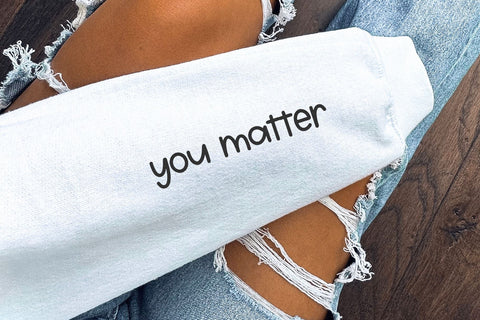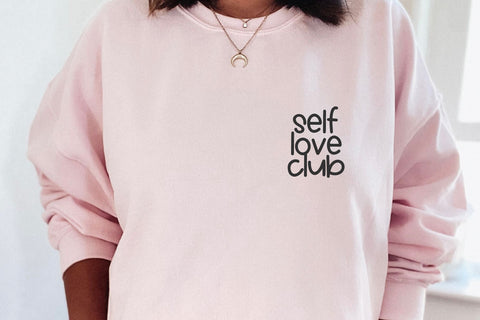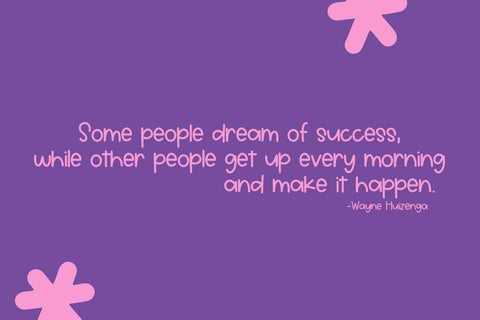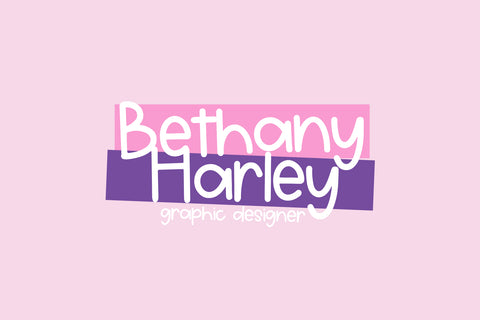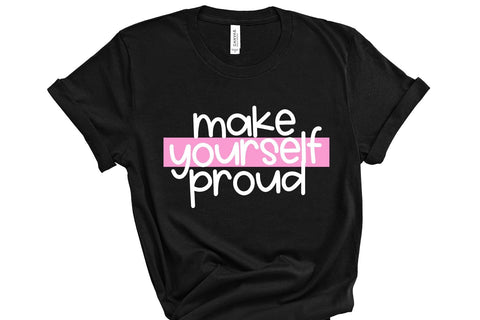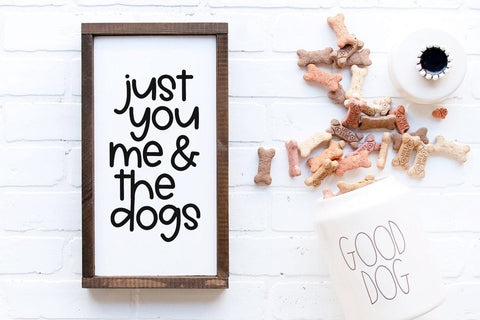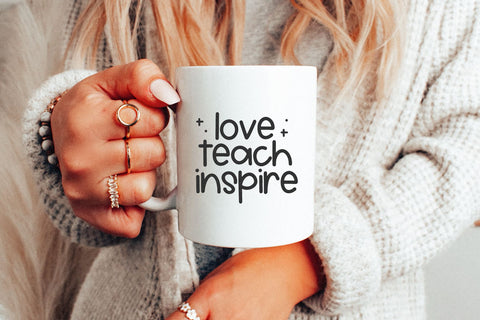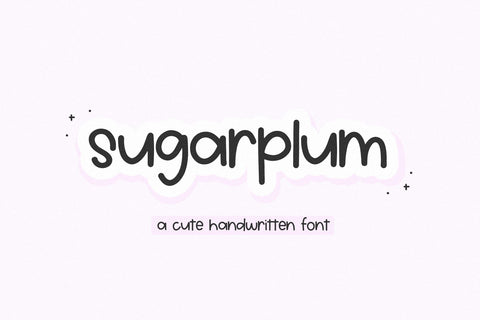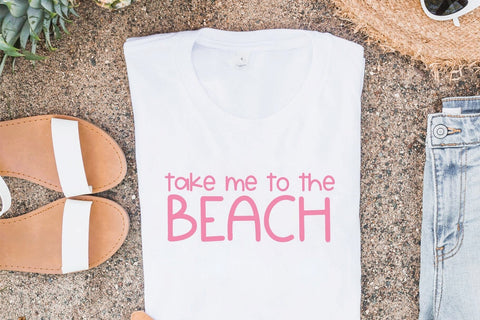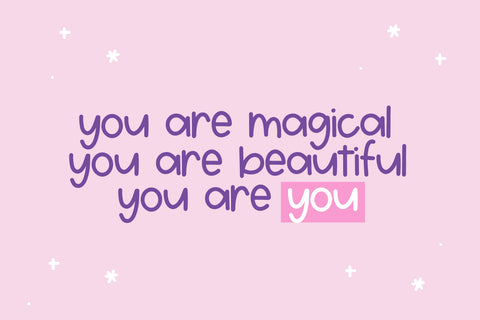
Sugarplum - Cute Handwritten Font
Sugarplum is a cute and quirky handwritten font!
This font is perfect for all of your crafting projects!
This font does include most accent characters.